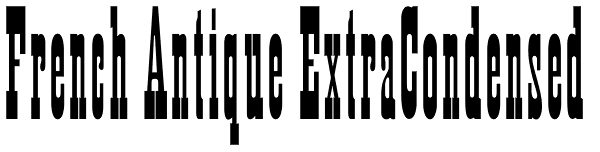
French Antique
A revival of one of the popular wooden type fonts of the 19th century, extremely condensed, bold, flat thick serifs, a very useful design for display.
French Antique ExtraCondensed Font